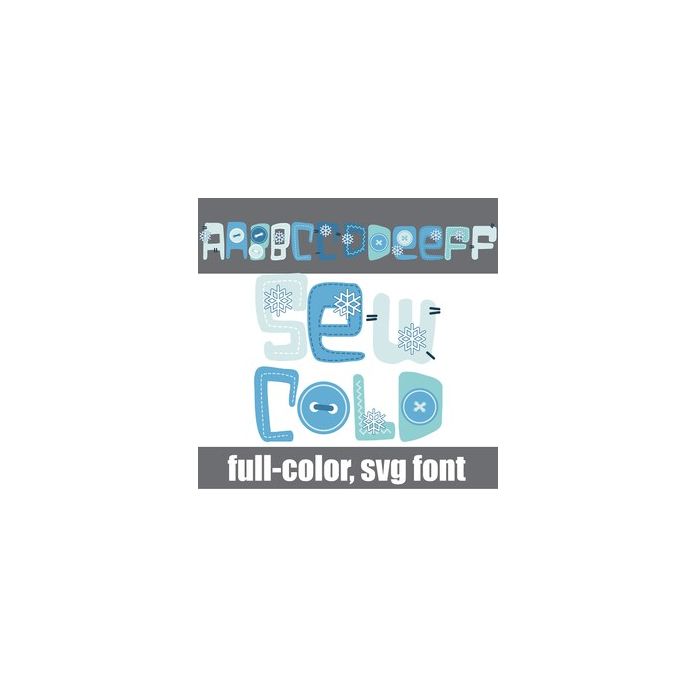
This full-color font features a cold color palette with stitches, buttons, and snowflakes. There is an alt case w/ additional colors you can access through your system or Silhouette's glyph map.